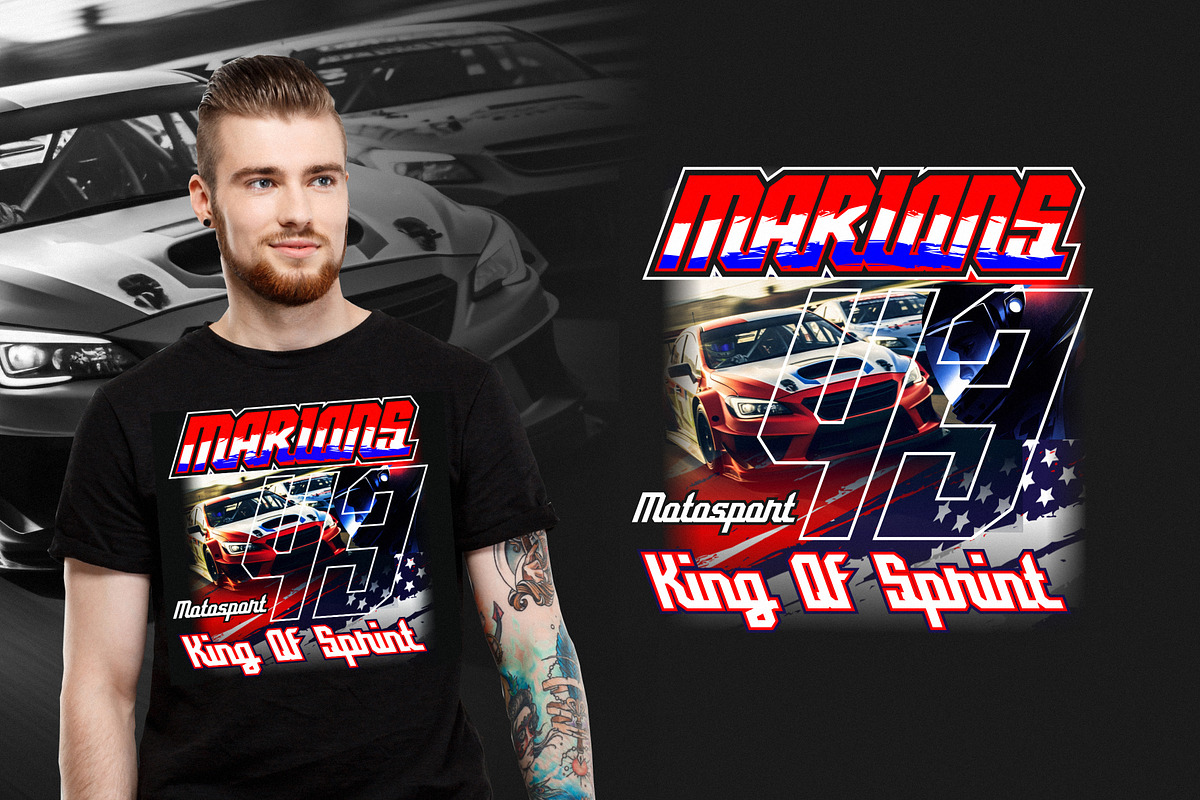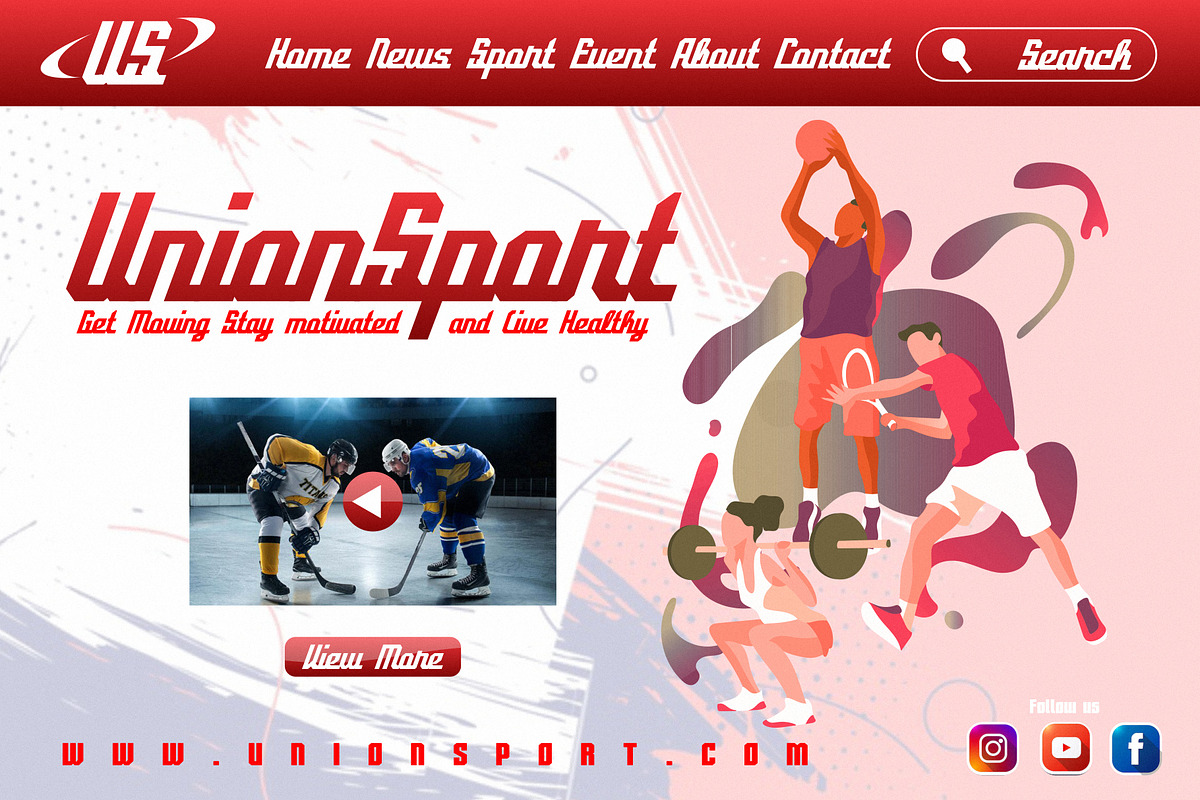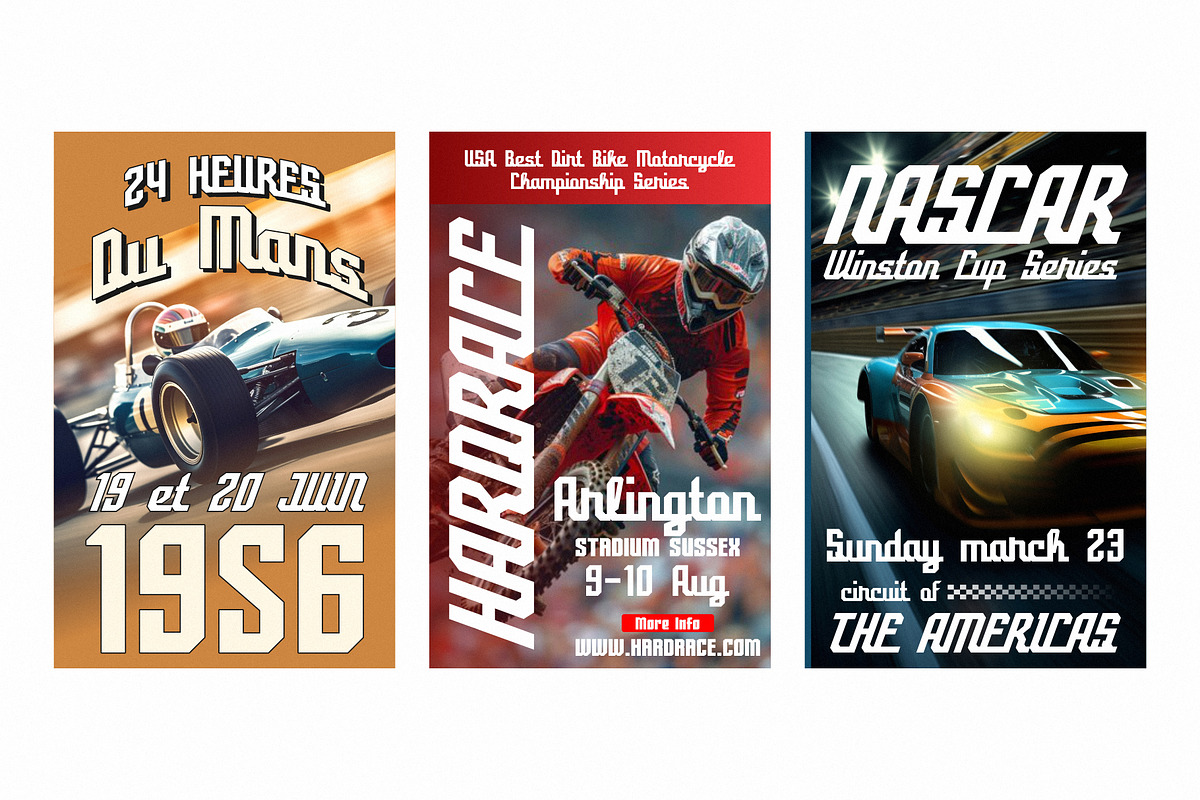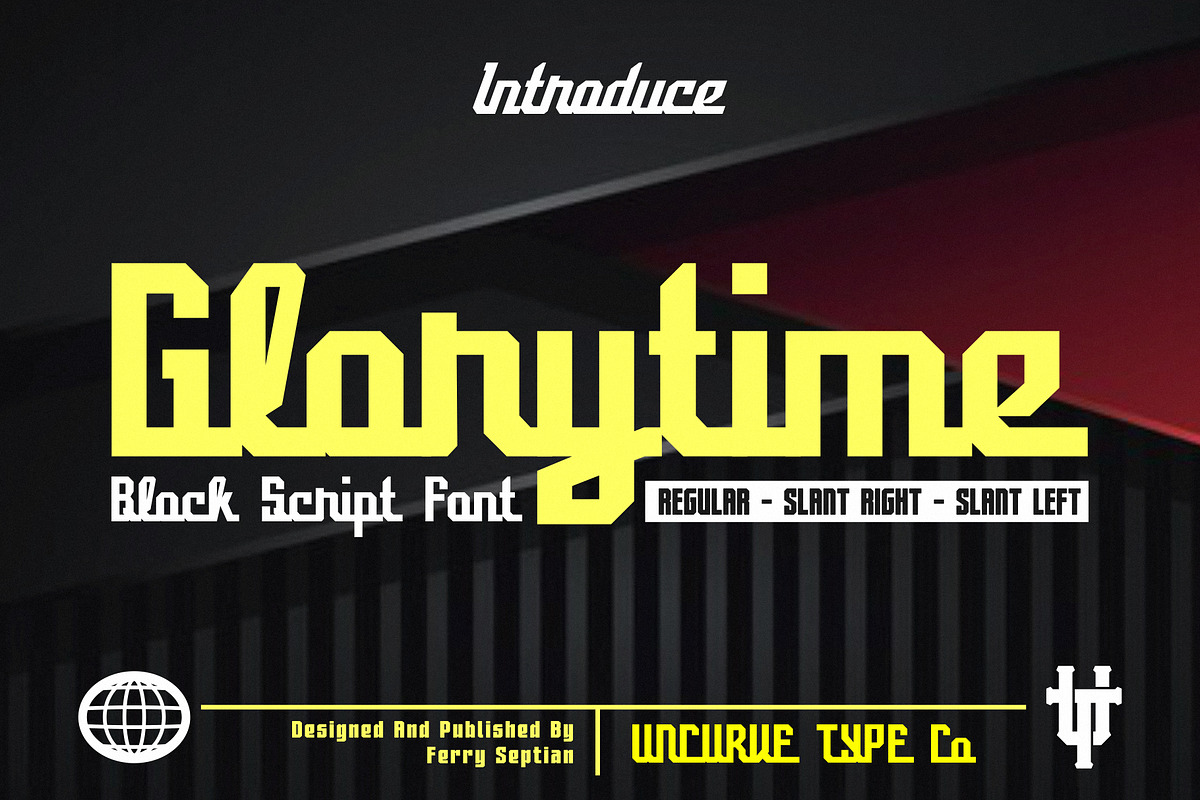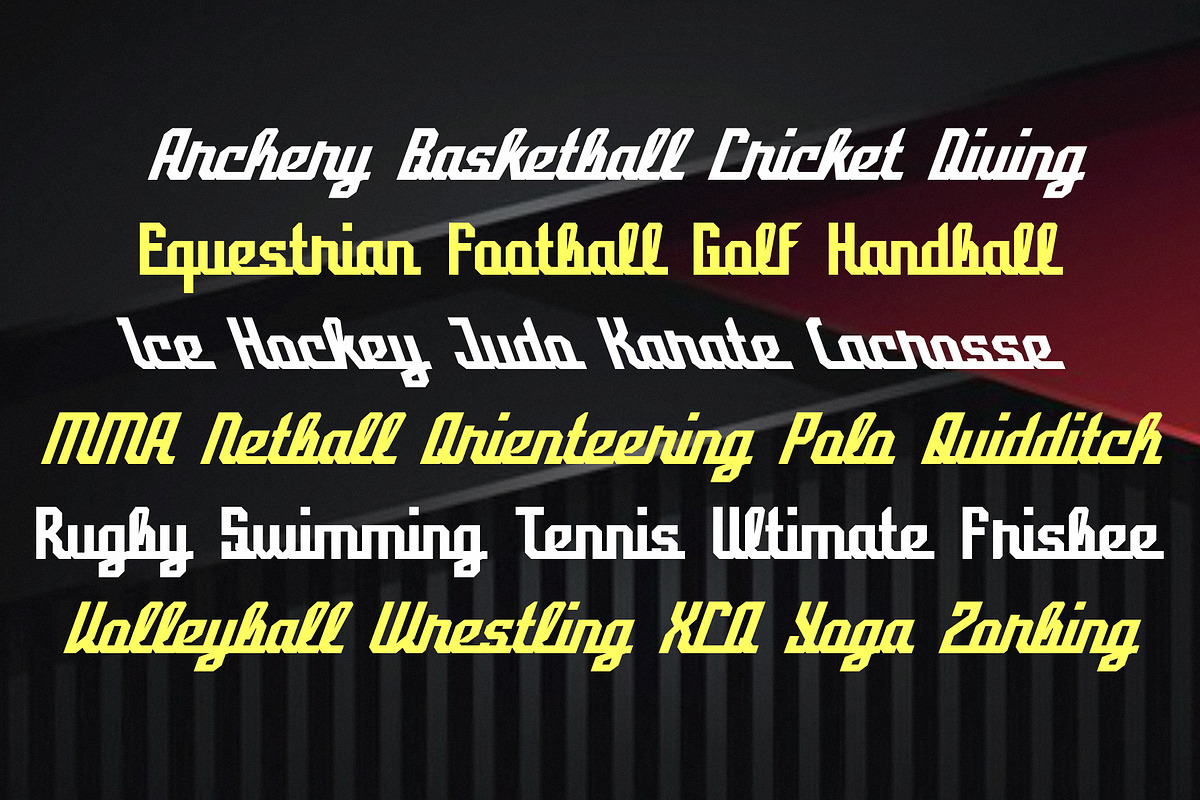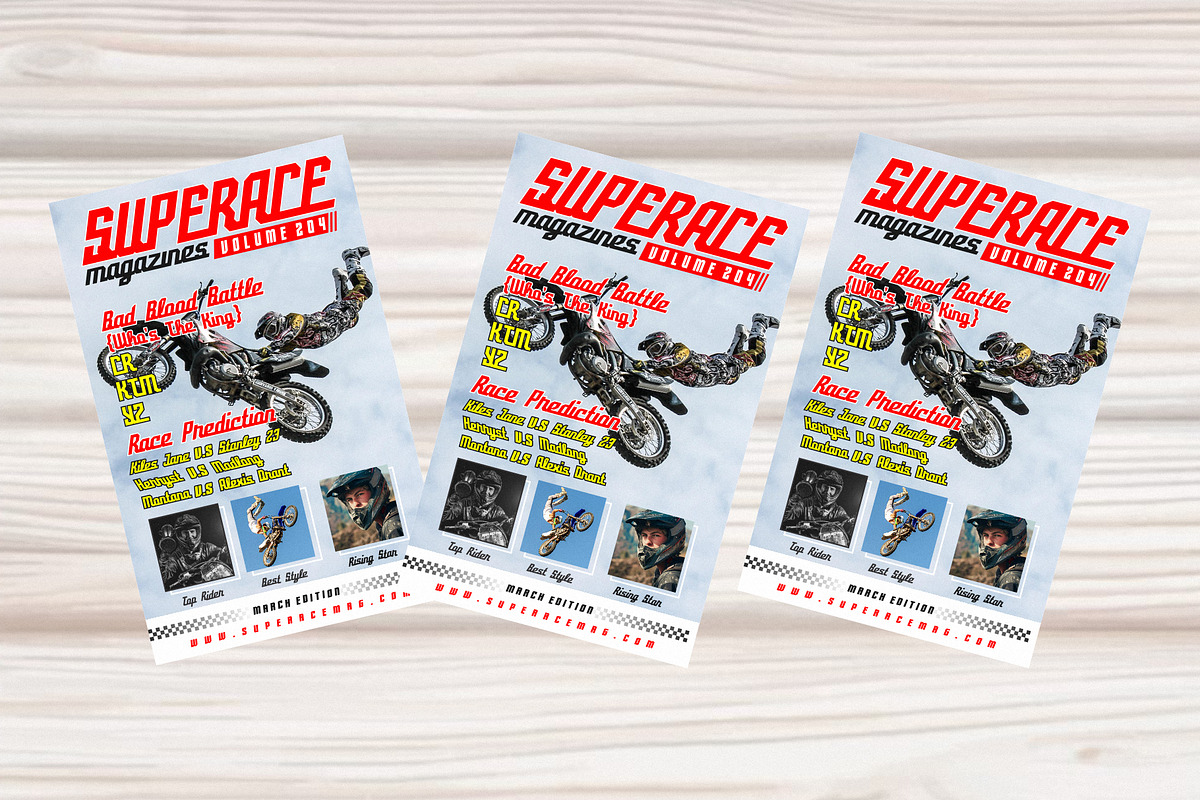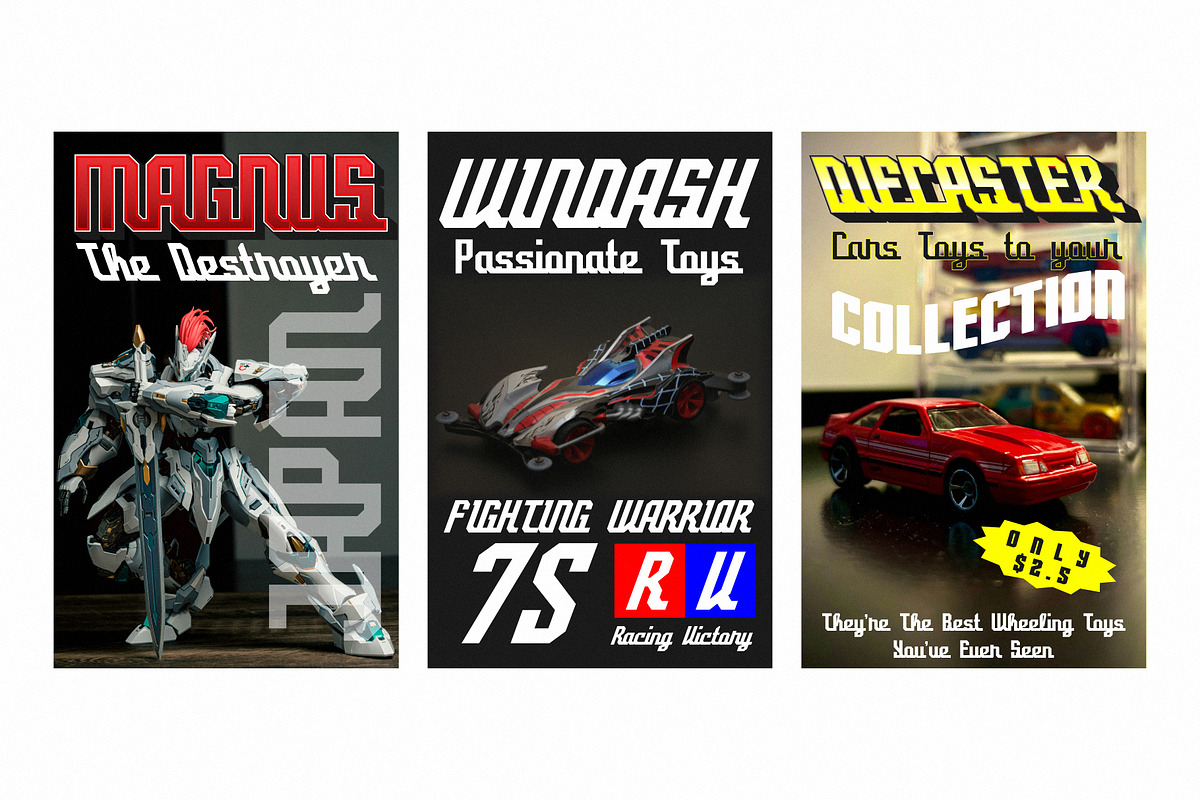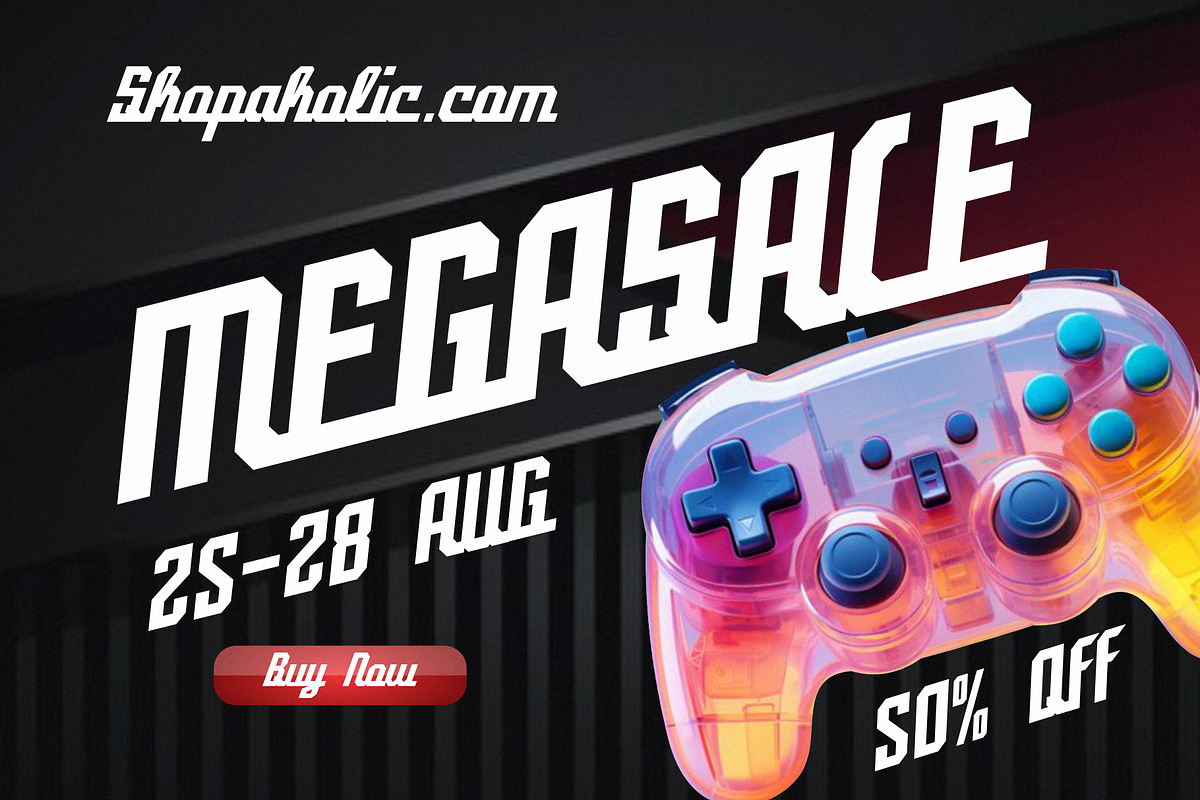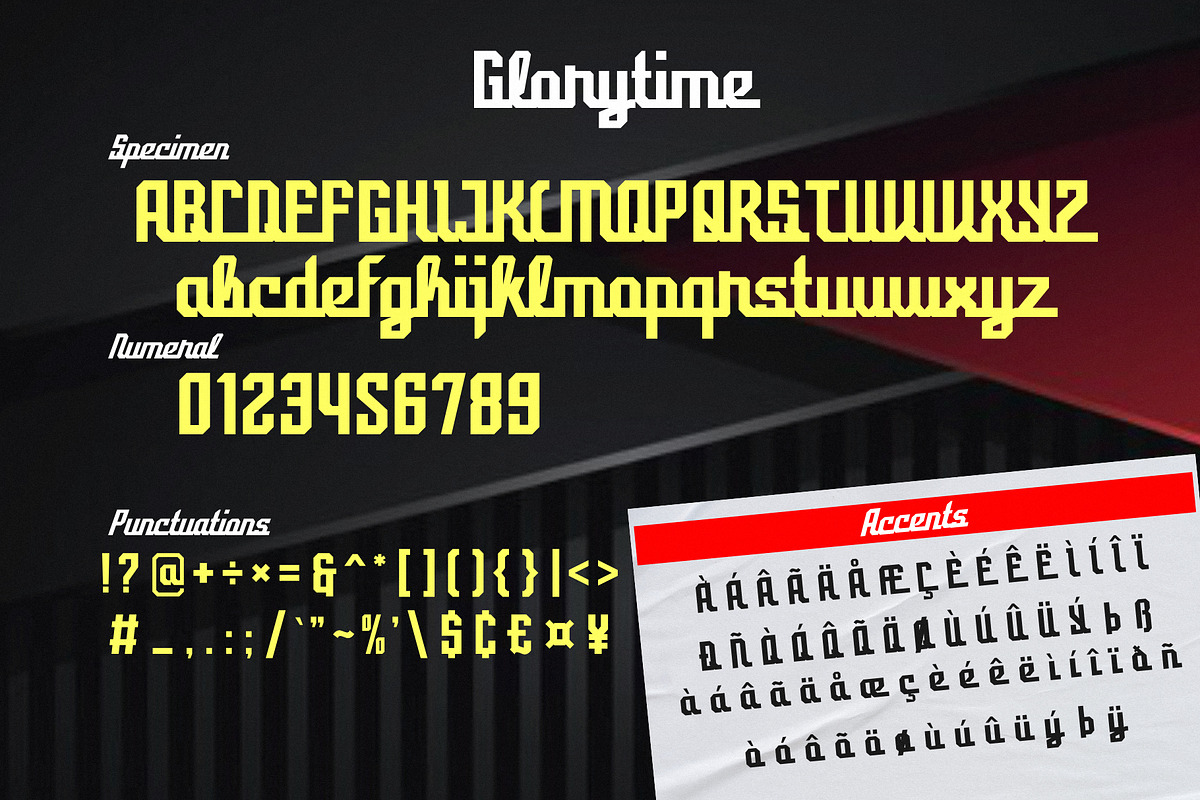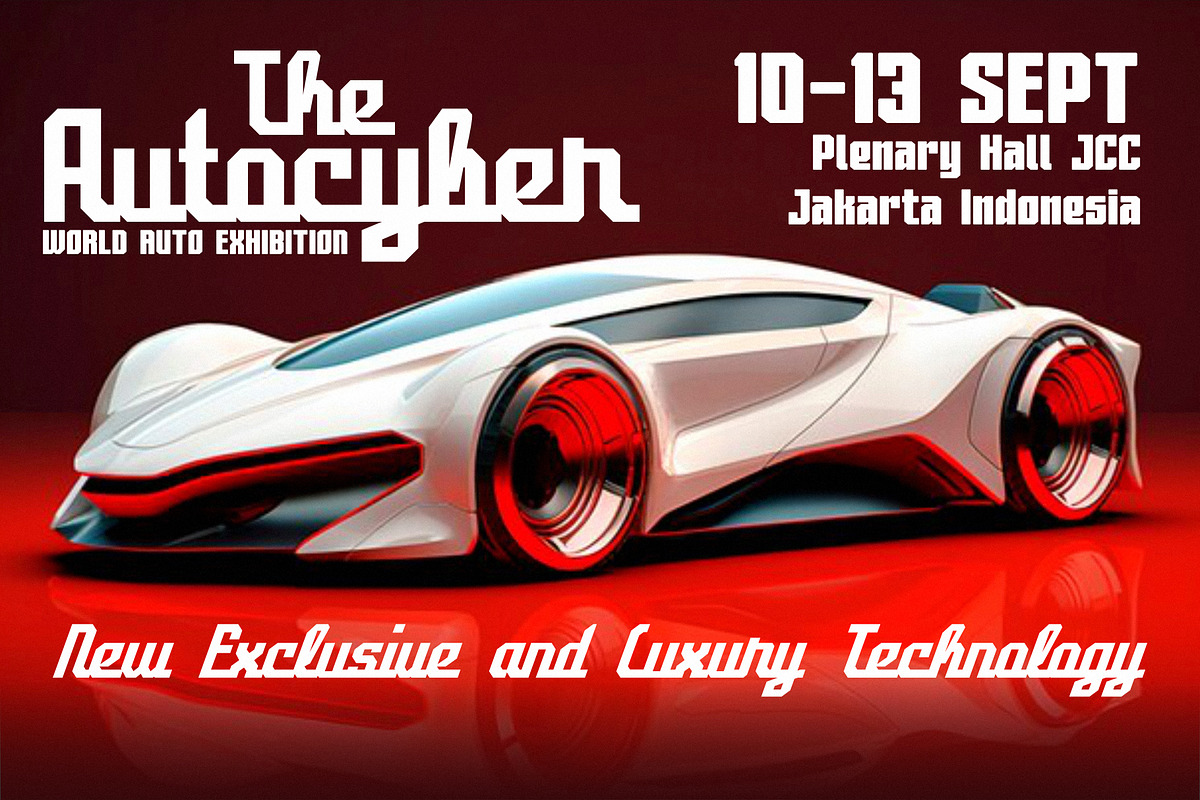
Glorytime
Glorytime is a bold and energetic block script font designed for impact. Featuring three versatile styles—Regular, Slant Right, and Slant Left—this font gives you the flexibility to create dynamic and modern compositions that stand out in any setting. Its sharp curves and powerful strokes bring a perfect mix of futuristic flair and sporty energy.
Inspired by fast-paced design environments like racing, sports branding, and gaming, Glorytime is ideal for logos, posters, flyers, apparel, book covers, race event graphics, social media posts, automotive design, websites, and more. Whether you're designing for a game title, garage brand, or athletic gear, Glorytime delivers a strong and stylish look with confidence.